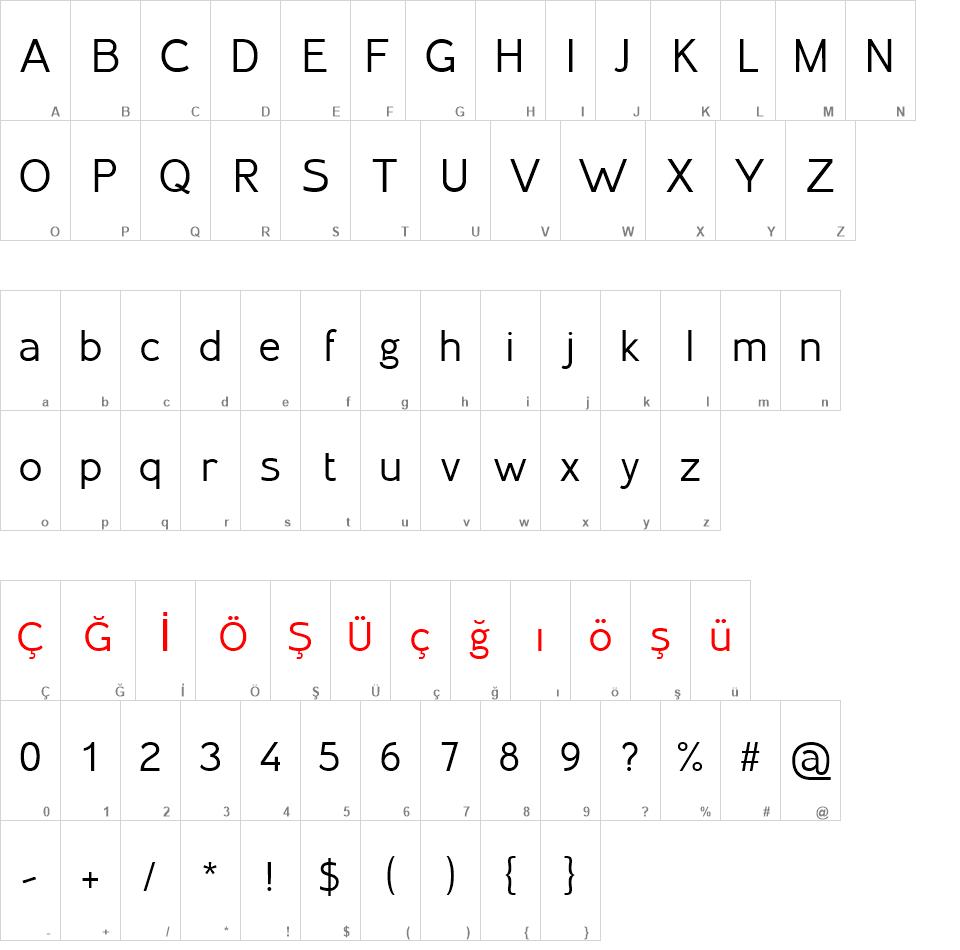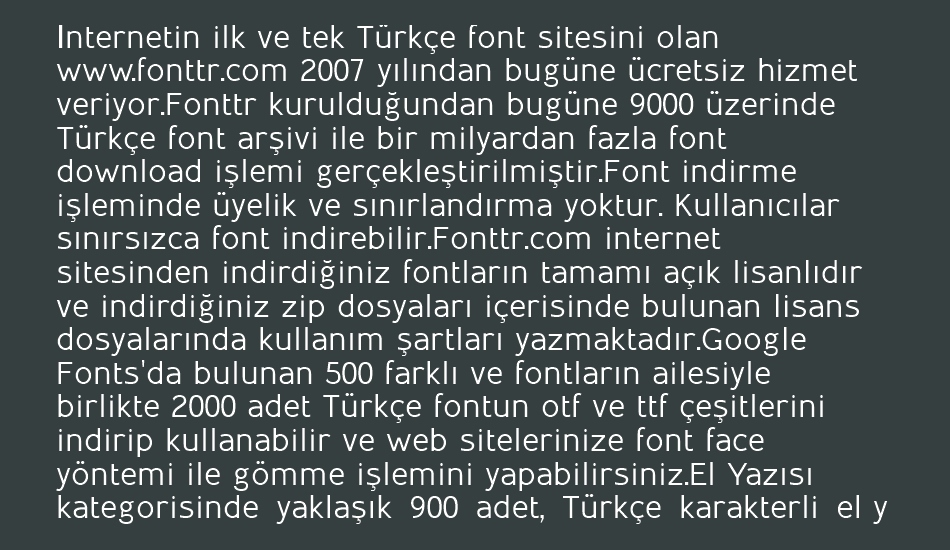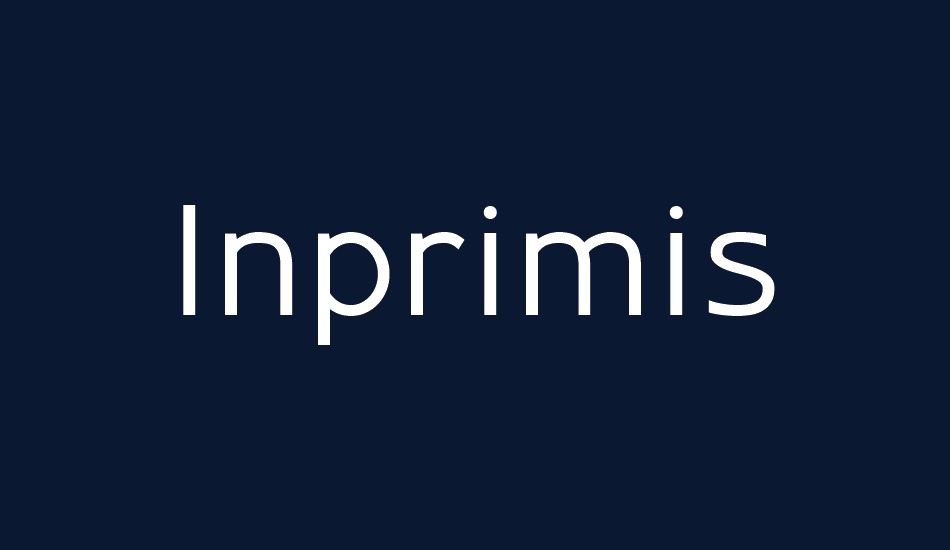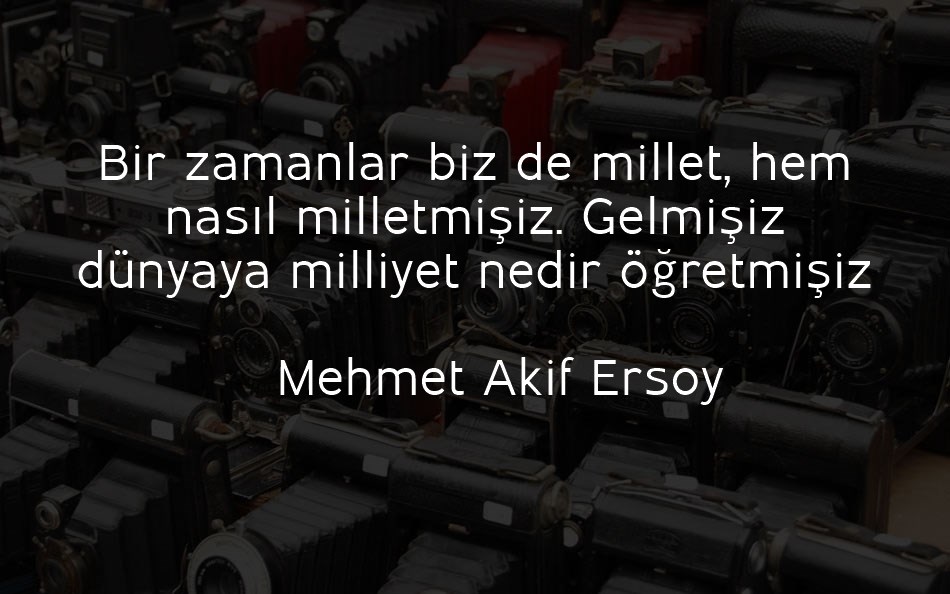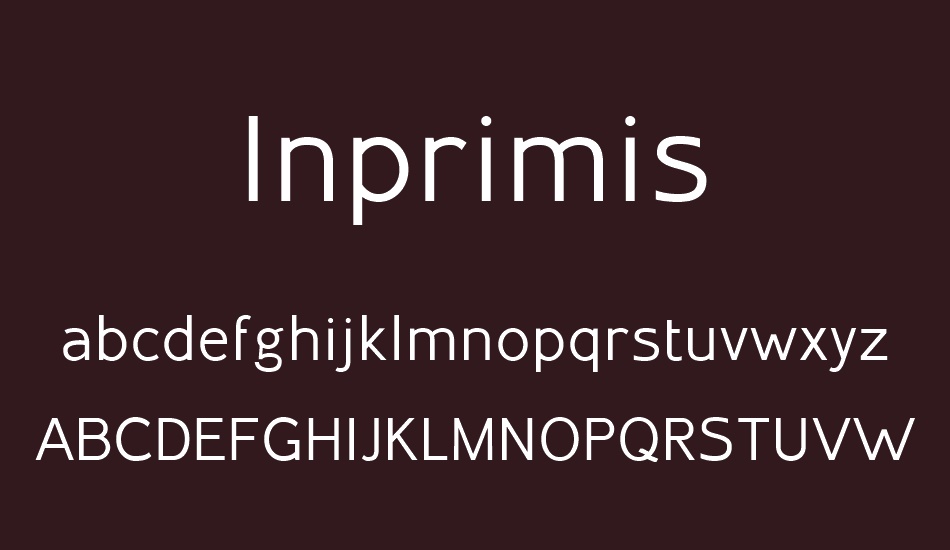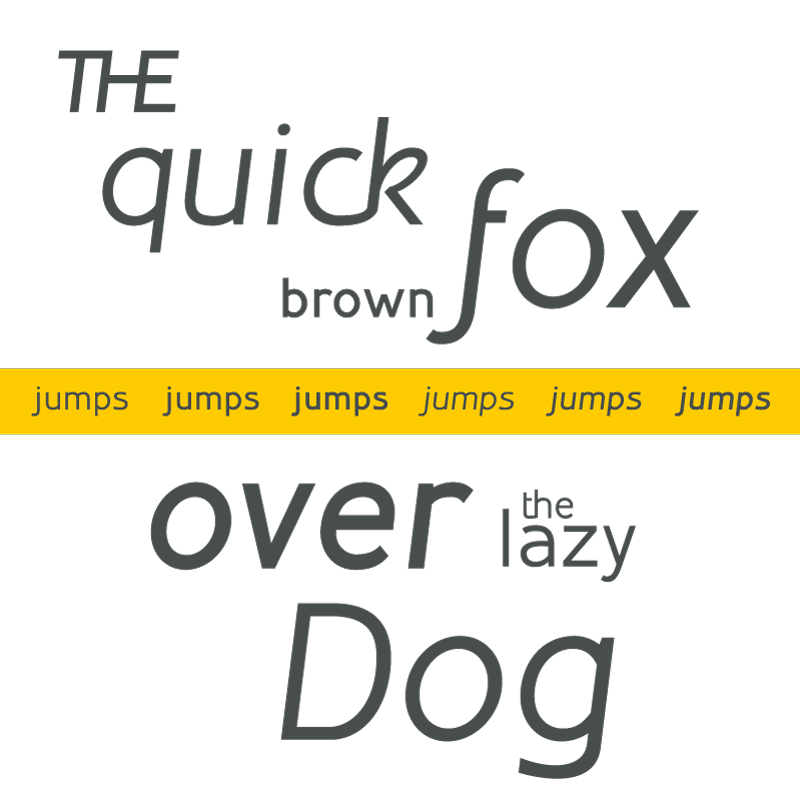
Inprimis font
Thanks for download a free version of 'Inprimis', a brand new sans serif type family based on "old style" typography, translated in moder era. A mix of geometric forms, antique ligature and oblsolete (or forget?) gliphs, like an 'asterism' or an 'interrobangs'.
It comes in 6 styles: 3 uprights and 3 italics.
Each weight includes extended language support, ligatures and more.
? 490 gliphs each variant (2940 total)
? Standard + discretionary ligature
? Alternative style set
? Small capital
? Latin extended
? Lining + Oldstyle figure linear or tabular
? Numerator + Denominator + Subscript + Superscript
Now, the family Inprimis are in version 1.26 and completed these variant:
55 Regular
56 Italic
65 Medium
66 Medium italic
75 Bold
76 Bold italic
Work in progress:
45 ligth
46 light italic
85 black
86 black italic
Inprimis is incredibly useful on most of creative field like magazine, poster, book, composition.